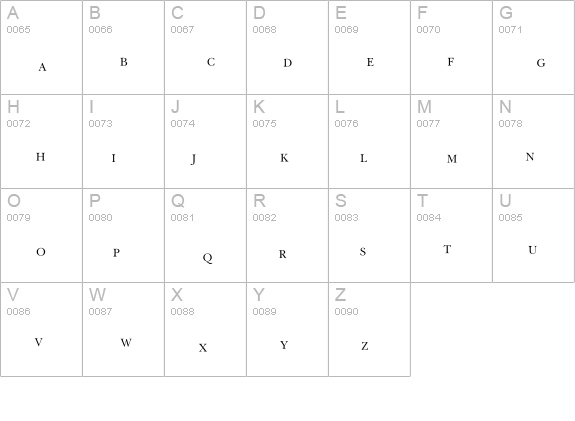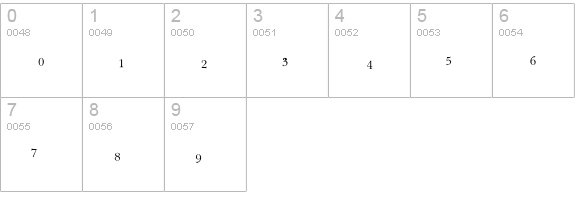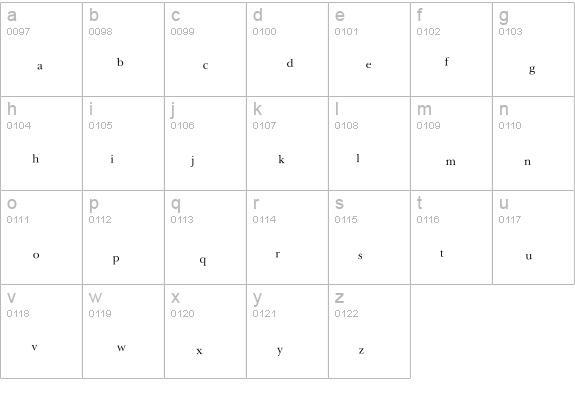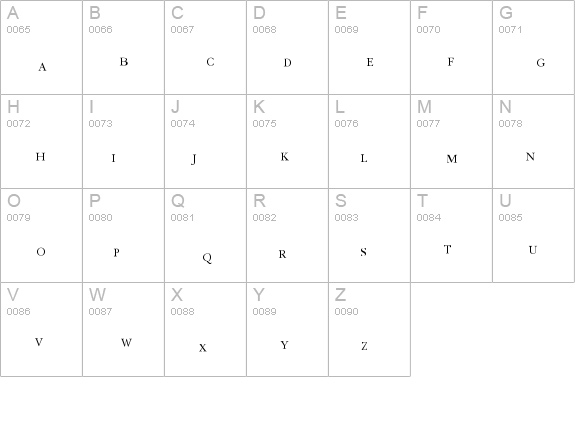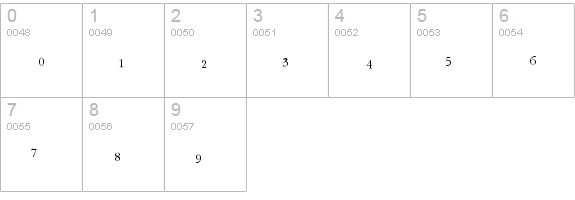
Religion-Obedience Font Details
The Religion-Obedience font is a beautifully crafted typeface that exudes a sense of reverence and devotion. Its elegant and intricate design captures the essence of religious piety and obedience, making it the perfect choice for any spiritual or religious project. This font is meticulously created to embody the strong connection between faith and obedience, with its clean lines and intricate details. Each letter is carefully crafted to reflect the principles of devotion and discipline that are central to religious practice. The Religion-Obedience font brings a sense of spiritual harmony to any design, whether it be a religious publication, sermon, or artwork. One of the most remarkable aspects of the Religion-Obedience font is that it is freely available to download at FontsMarket.com. This means that designers, artists, and anyone seeking to add a touch of religious inspiration to their creations can easily access and utilize this unique font without any cost. The availability of this font for free ensures that everyone can have access to a tool that can enhance their religious and spiritual designs. With its strong and meaningful presence, the Religion-Obedience font is an excellent choice for anyone who wants to convey a message of faith, obedience, and devotion. Its timeless design and availability for free make it a valuable asset for any designer or individual seeking to add a touch of spirituality to their work. Download the Religion-Obedience font today from FontsMarket.com and let its divine essence inspire your next creative project.